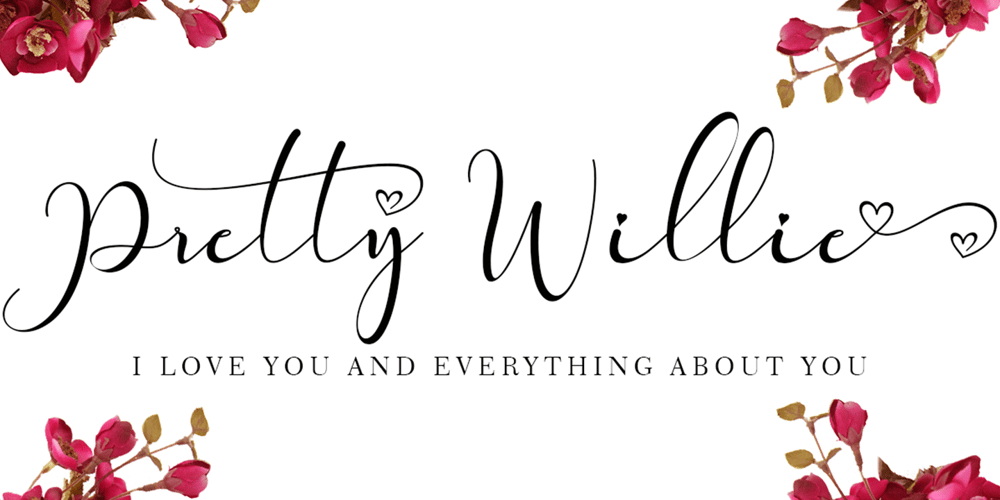
Pretty Willie Font Family was designed by Isroni Yoga Prasetya and published by Yoga Letter. Pretty Willie contains 1 styles and family package options. “Pretty Willie” is a very beautiful and romantic font name. “Pretty Willie” is very beautiful and elegant. This is a handwritten font that is very suitable for beautifying your work. Equipped with uppercase, lowercase, ligatures, swash, titling, uppercase alternates, numerals, punctuation, and multilingual support